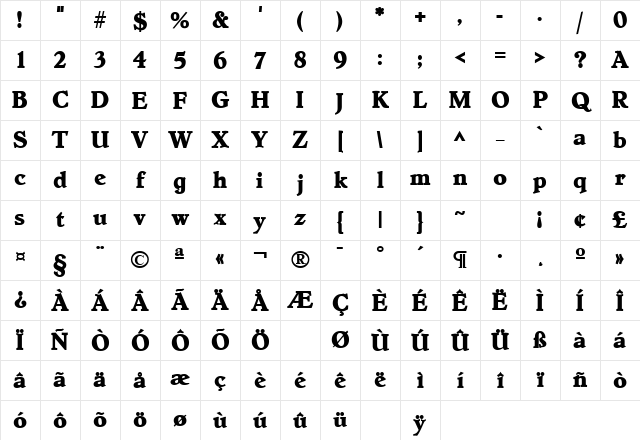
HobokenLH Bold Free Font
HobokenLH Bold
HobokenLH Family
HobokenLH Bold
Design Context for HobokenLH
HobokenLH is a composed and adaptable typeface that performs quietly and consistently across a wide range of design contexts. Its bold stroke weight gives it real presence on the page.